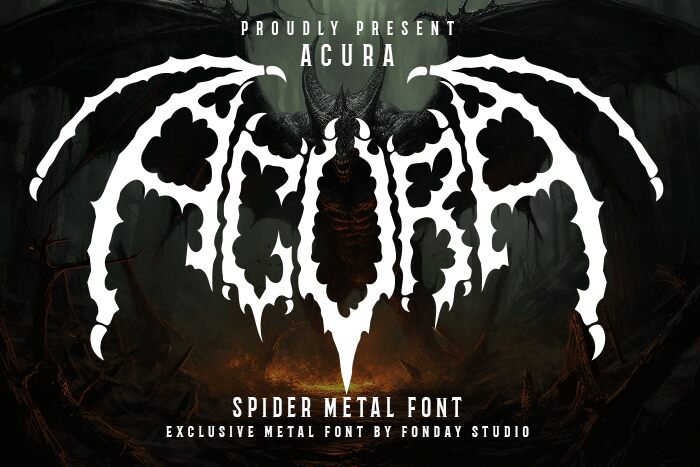
ACURA
Acura font, designed by Fondaystudio, captivates with its striking, scary aesthetic that evokes a sense of intrigue and unease. Every character is a compelling artwork, featuring exaggerated curves and sharp angles that command attention. The font's bold forms create an intense presence, while its unique design elements impart a hauntingly beautiful quality.
Perfect for horror-themed designs, thrilling event promotions, or edgy branding projects, Acura font stands out in any creative endeavor. Its visually impactful style ensures it won't be easily overlooked, making it an excellent choice for titles and headlines where the goal is to evoke strong emotions. Whether used in digital media or print materials, this display font captures the imagination and leaves a lasting impression.